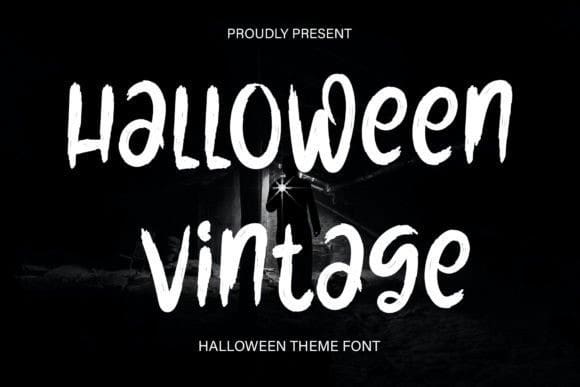
Halloween Vintage Font
Halloween Vintage Font is a sweet and friendly handwritten font. Fresh and casual, this font is ideal for writing wedding invitations, cards, or any other design that might need a lovely touch.